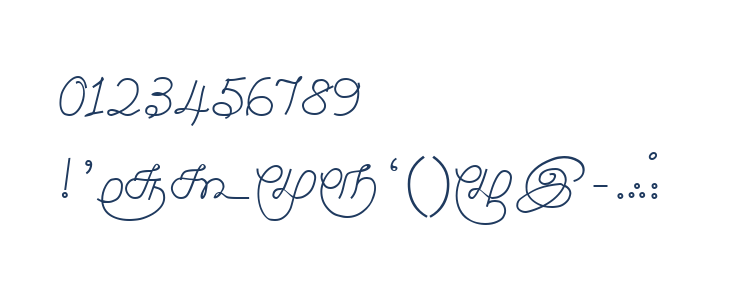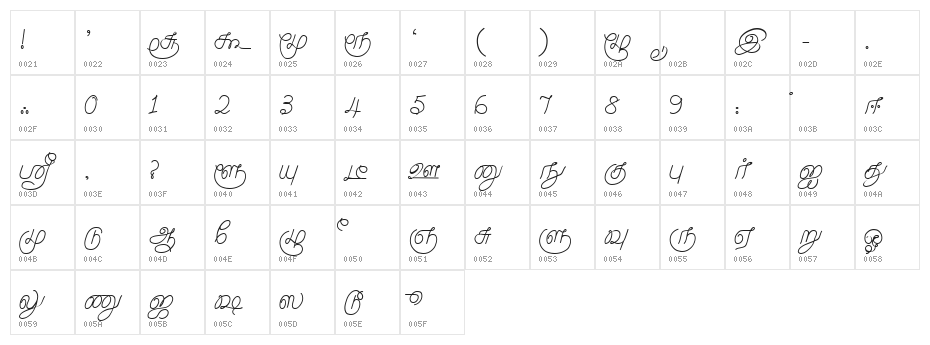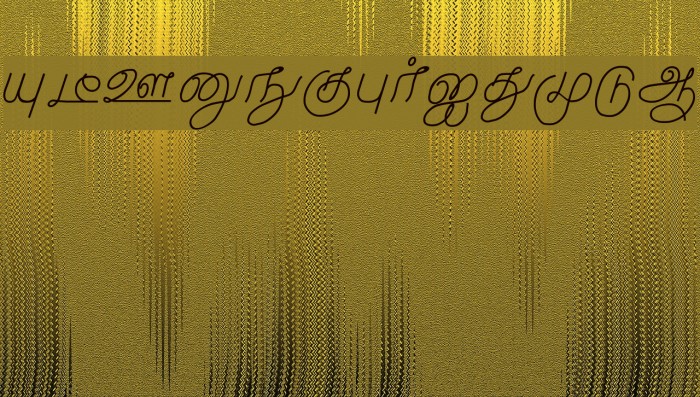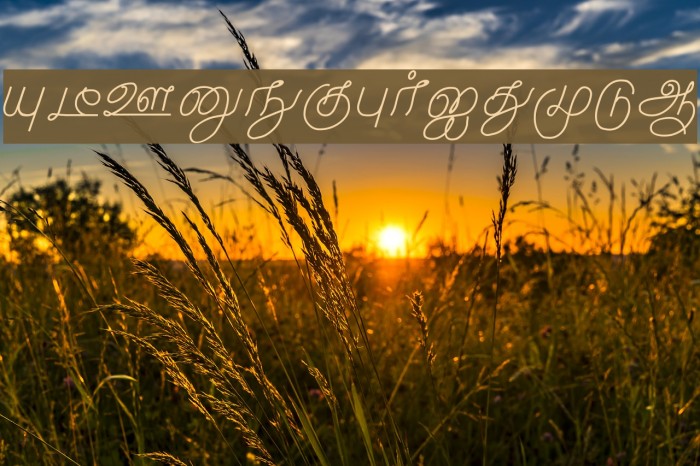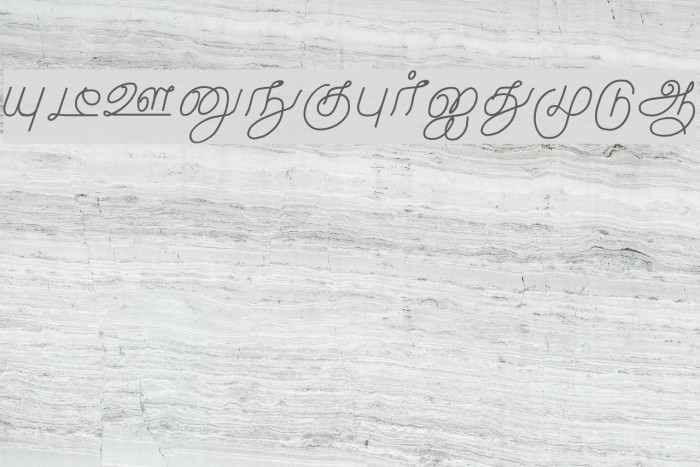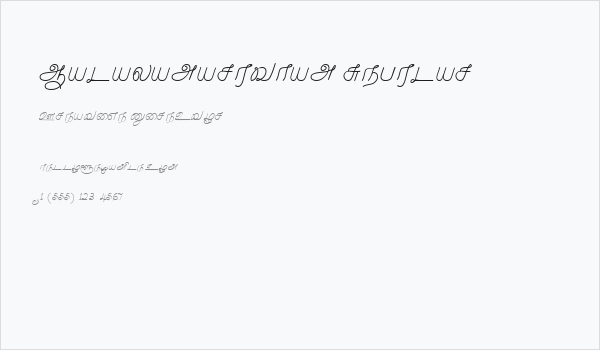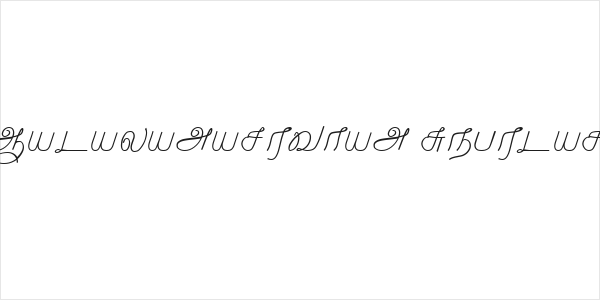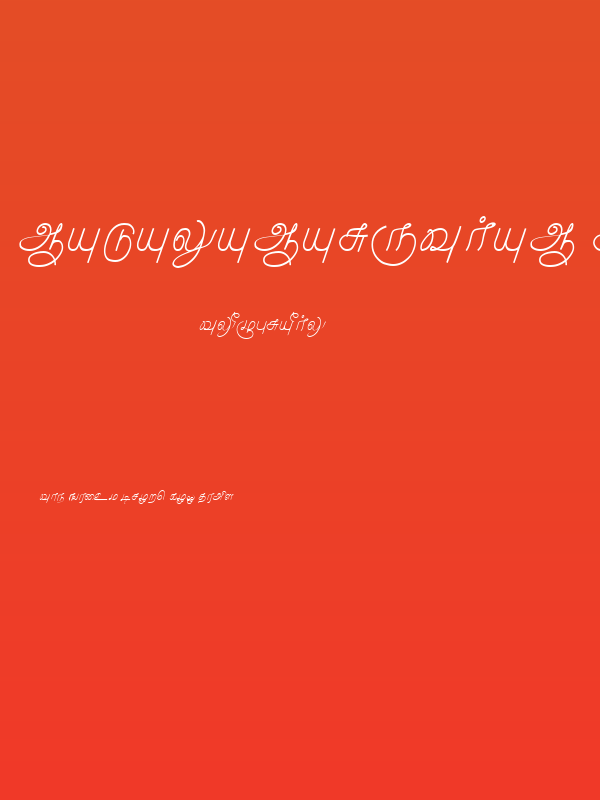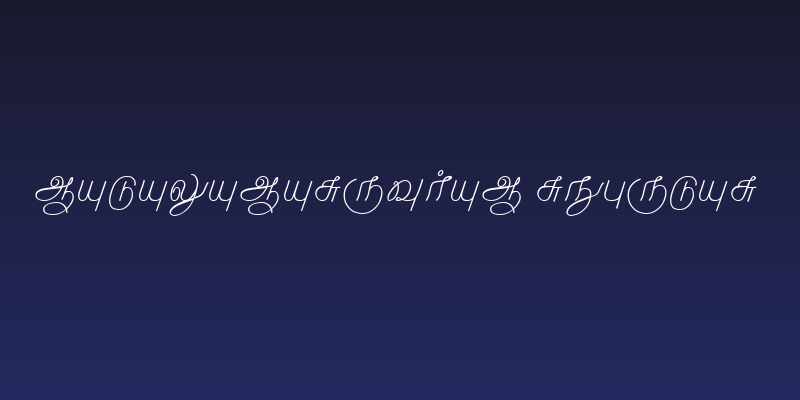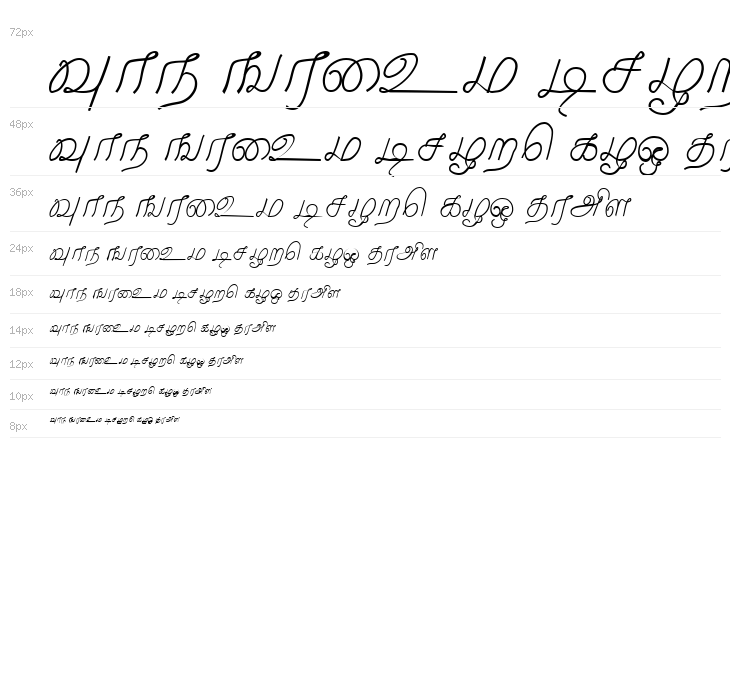
Malayamarutham Regular Font
Malayamarutham Regular Description
This font exhibits a flowing, cursive style that is both elegant and refined. The characters are connected in a smooth, continuous manner, creating a sense of fluidity and grace. The script is characterized by its delicate curves and loops, which give it a sophisticated and artistic appearance. The font maintains a consistent stroke width throughout, contributing to its harmonious and balanced look. It is well-suited for conveying a sense of elegance and tradition, making it ideal for formal invitations, certificates, or any project that requires a touch of class and refinement.
| Use Case | Headlines, Invitations, Certificates |
| Proposed Projects | Ideal for wedding invitations, formal event programs, certificates, and elegant branding materials. |